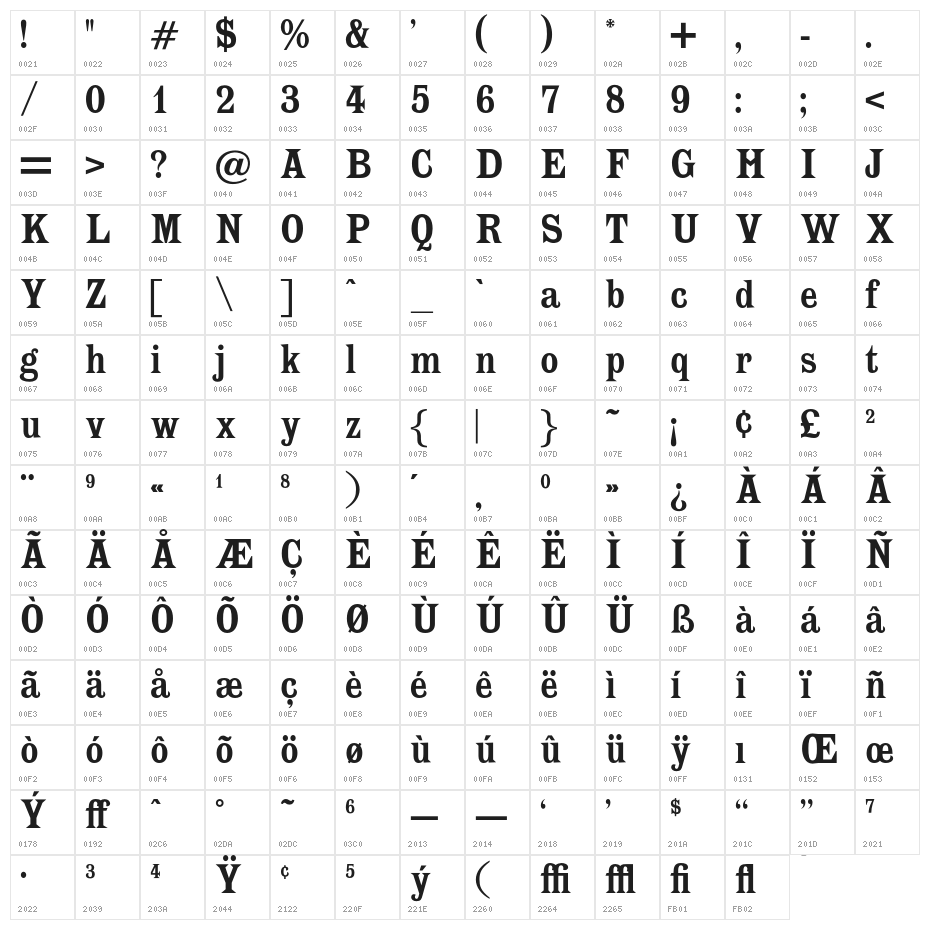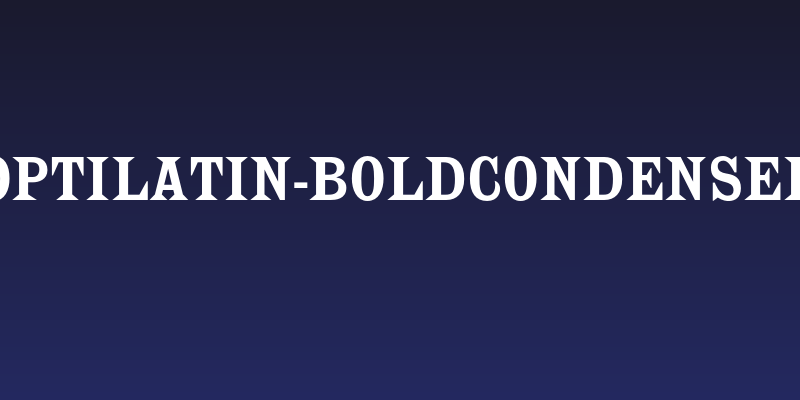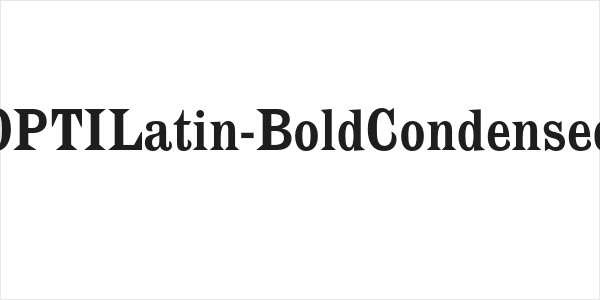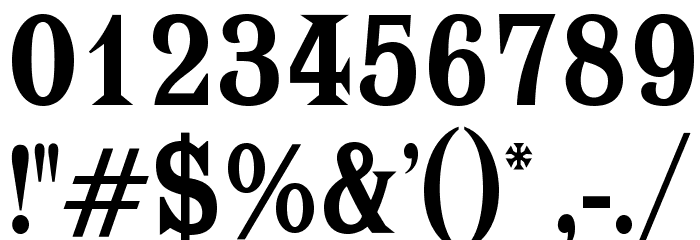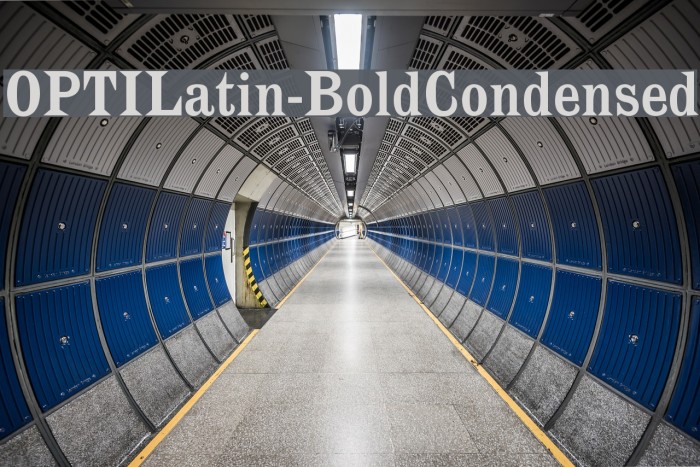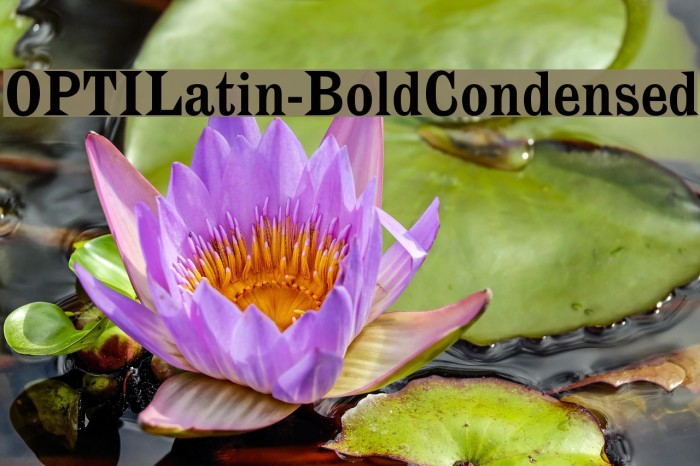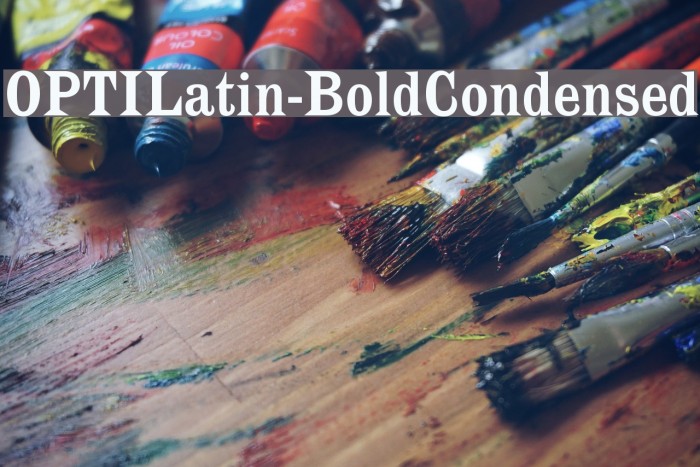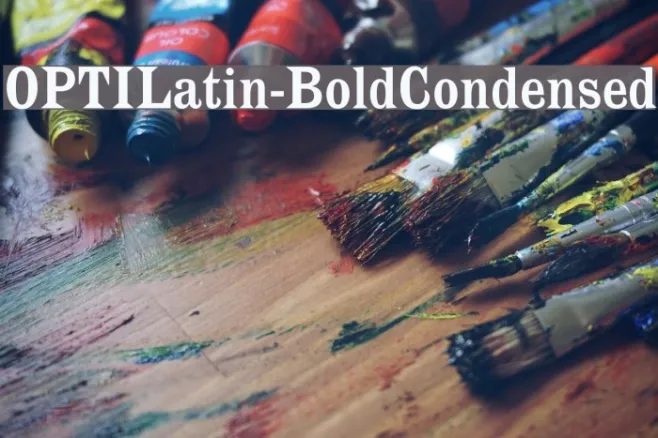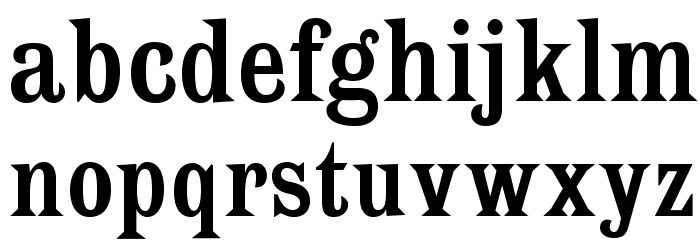
OPTILatin-BoldCondensed Font
OPTILatin-BoldCondensed Description
This typeface features bold, condensed letterforms with a strong presence and high legibility. The uppercase letters are robust and commanding, while the lowercase letters maintain a consistent weight and structure. The numerals are clear and easily distinguishable, making them suitable for various applications. The special characters are well-defined, adding versatility to the font. Overall, the design is clean and impactful, making it ideal for attention-grabbing headlines and titles. The condensed nature allows for efficient use of space without sacrificing readability.
| Proposed Projects | Ideal for posters, headlines, branding, and advertising where a strong visual impact is needed. |